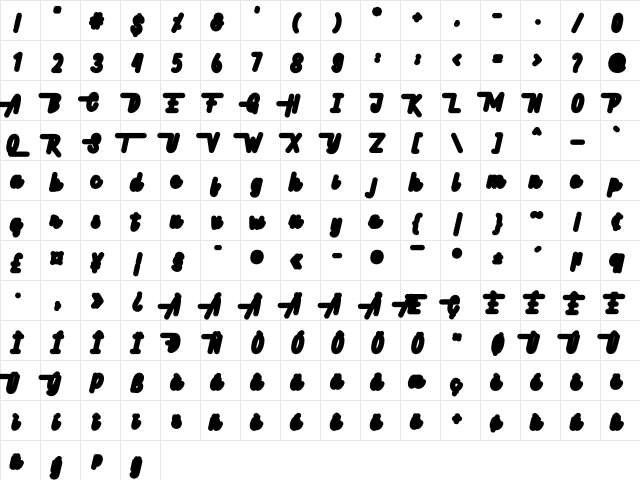
Hellytail Shadow Regular
Design Context for Hellytail Shadow Typeface
Hellytail Shadow is built around its visual character rather than neutral utility — its distinctive forms are designed to make an impression at display sizes.
Font Pairing: Pair with a clean neutral sans-serif for body copy to let Hellytail Shadow's character lead without overwhelming the composition.
Pro Tip: Treat Hellytail Shadow as the centrepiece of your typographic hierarchy. One strong heading set in a decorative face can carry an entire layout.